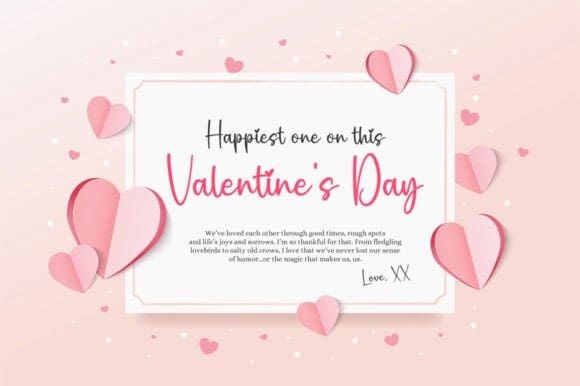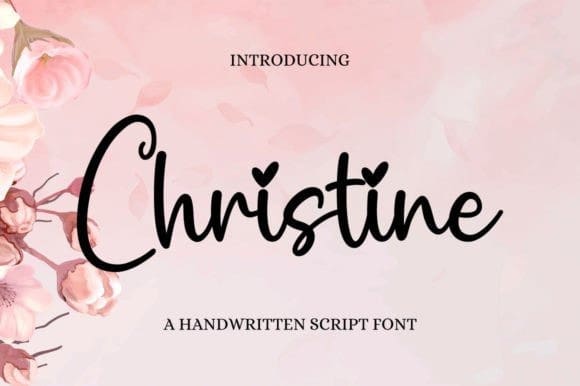
Christine Hand Font
Christine Hand Font, is a lovely and timeless handwritten font. It is the best choice for creating eye-catching logos, branding, and quotes.